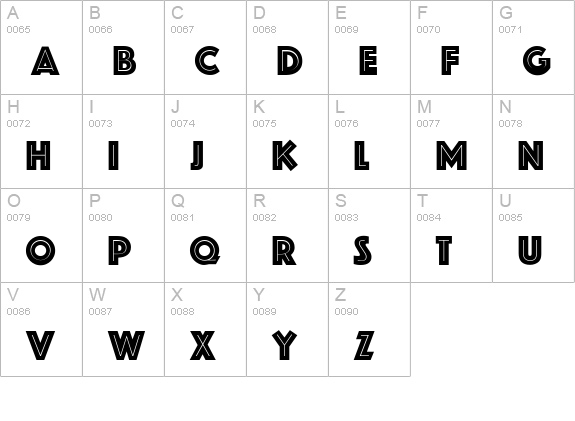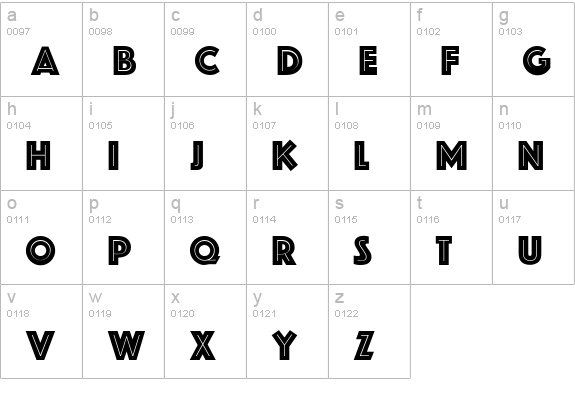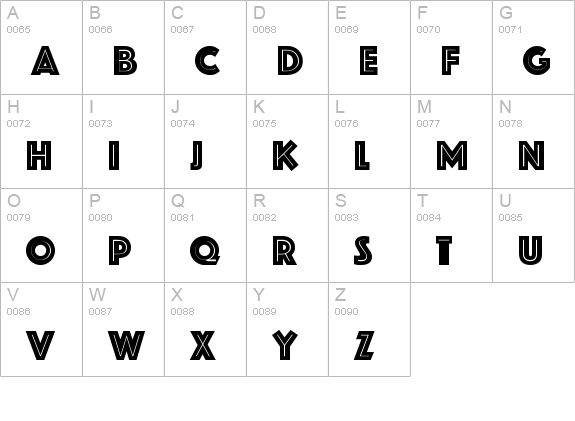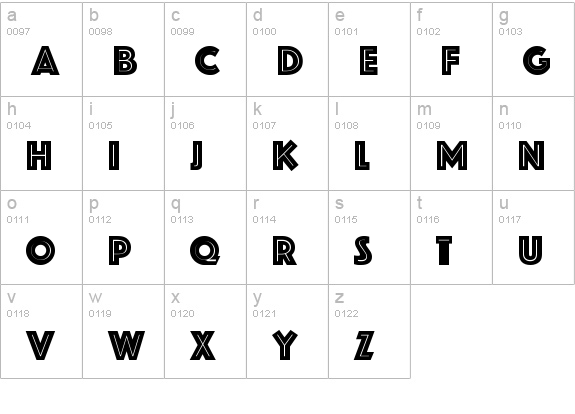
CgPhosphor Font Details
CgPhosphor is a modern and stylish font that exudes a sense of sophistication and elegance. With its clean lines and sleek design, this font is perfect for a wide range of creative projects, from branding to advertising to social media graphics. The unique blend of sharp angles and smooth curves gives CgPhosphor a distinctive look that will make your text stand out. What sets CgPhosphor apart is not just its striking appearance, but also its versatility. Whether you're creating a bold headline or body text, this font can adapt to suit your needs. Its readability and clarity make it a great choice for both print and digital media. And the best part? CgPhosphor is available for free download at FontsMarket.com. That's right, you can access this stunning font at no cost and start using it in your projects right away. Don't miss out on this fantastic opportunity to elevate your design work with CgPhosphor.